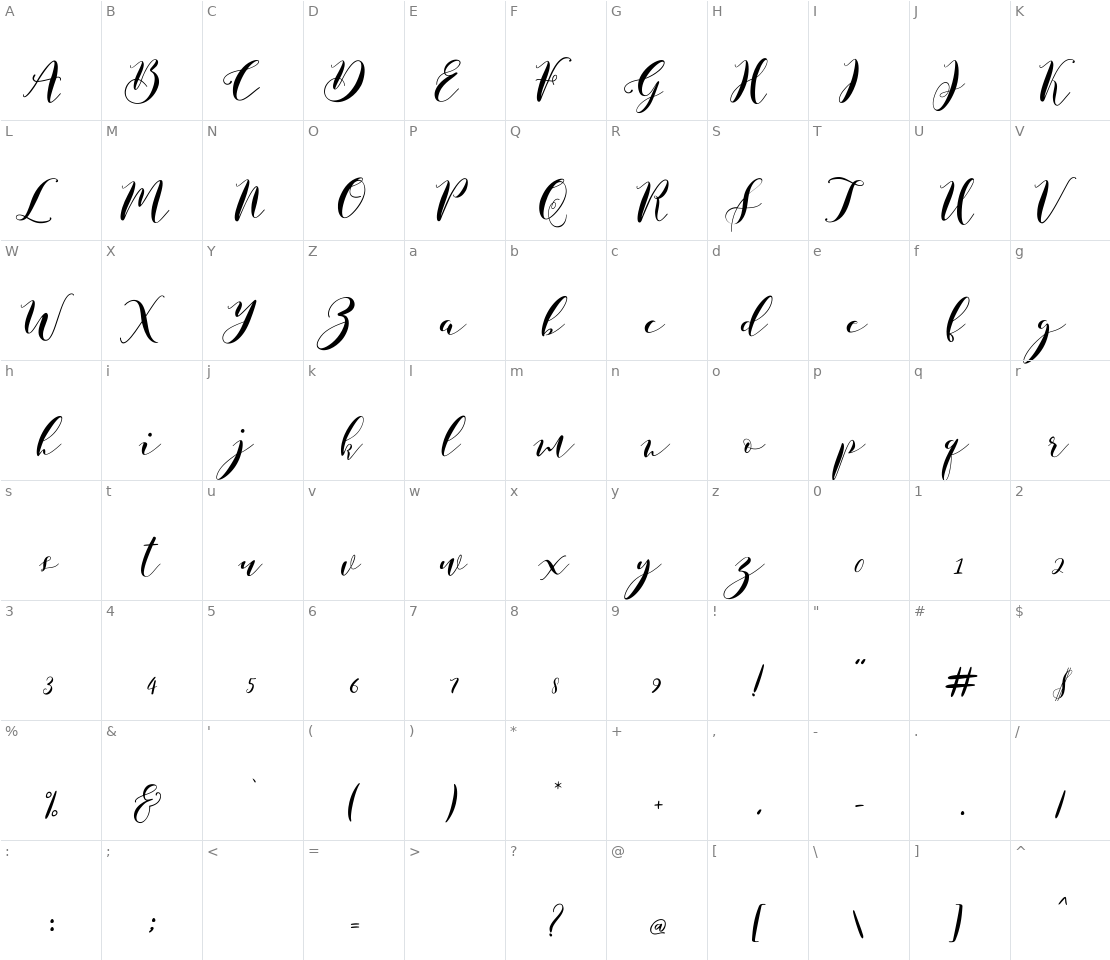
Paduka Script
Paduka Script is a flowing calligraphic script from Siwox Studios with graceful, sweeping strokes and a distinctly romantic sensibility. The letterforms have the kind of refined elegance you'd expect on wedding invitations, perfume packaging, or upscale editorial work. It's a decorative headline face at heart, best used at generous sizes where the delicate connections and ornamental flourishes can read clearly.